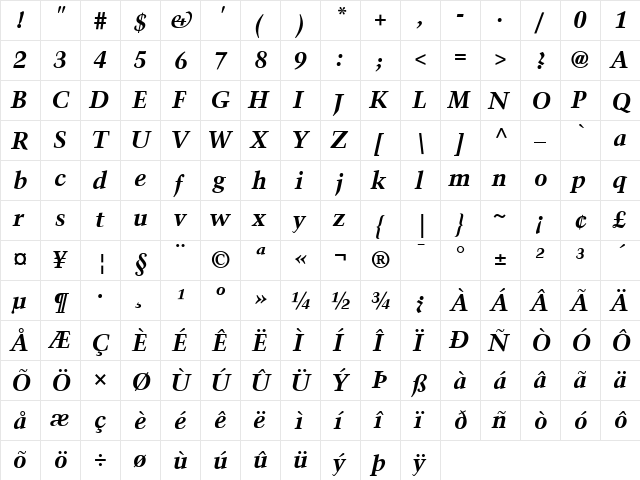
Trump Mediaeval Regular Font Preview
Trump Mediaeval Regular
Design Context for Trump Mediaeval Typeface
Trump Mediaeval offers clean, dependable letterforms without strong stylistic allegiance, making it a practical choice for designers who need flexibility.
Pro Tip: Use Trump Mediaeval in both headline and body roles to test its range before committing to a single application.